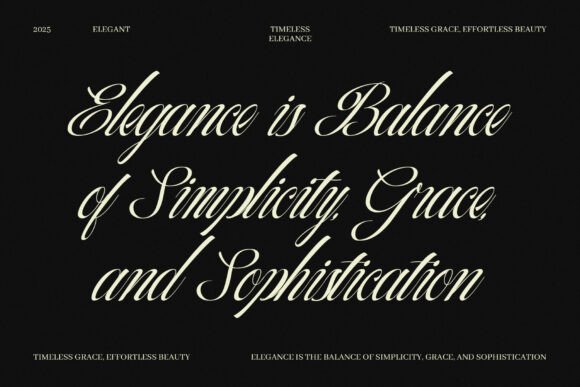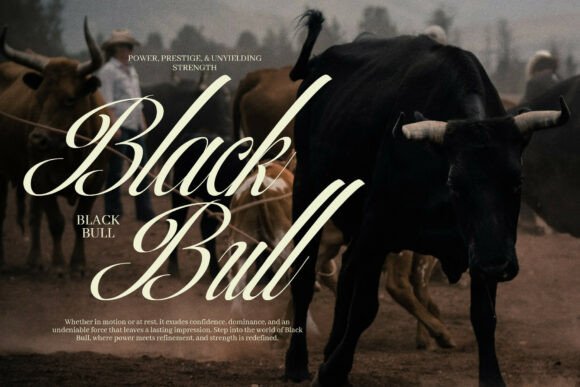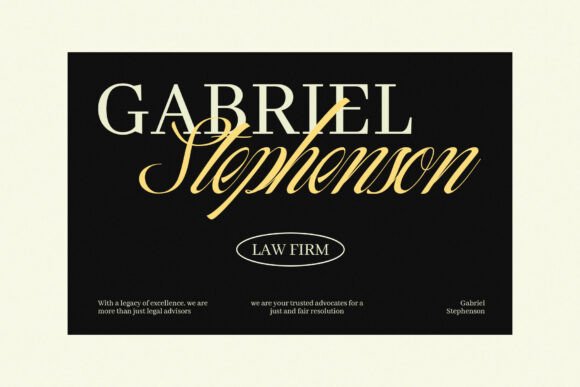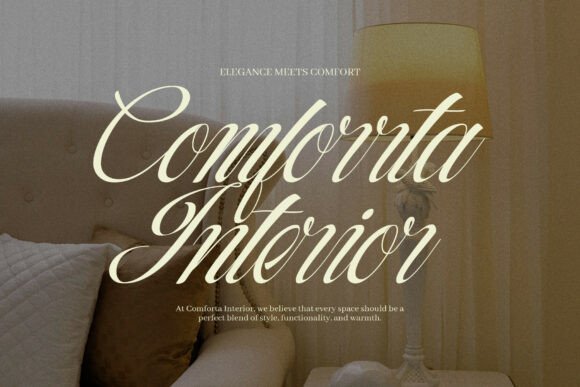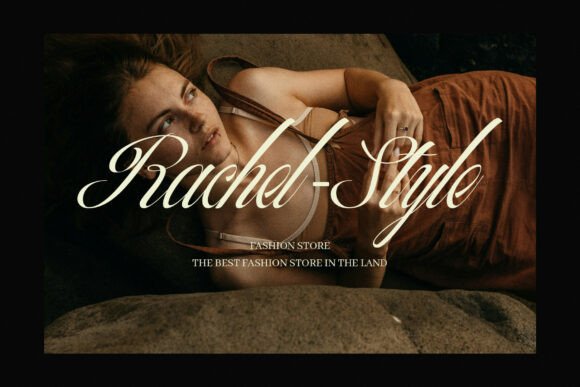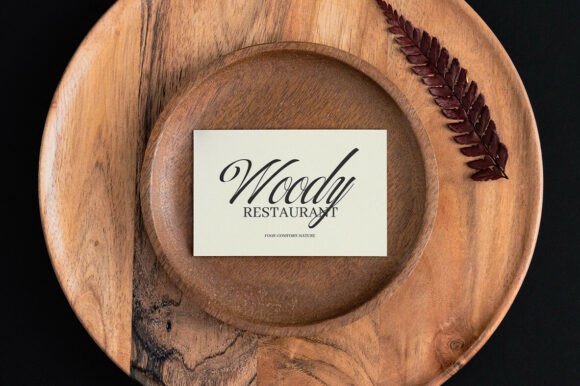
Introducing Beatric Elegant Script Font: Elevate Your Designs with Timeless Elegance
In the world of typography, a well-crafted font can make all the difference in elevating your creative projects from ordinary to extraordinary. Meet Beatric Elegant Script Font, a stunning modern calligraphy typeface that embodies the perfect blend of timeless elegance and artistic flair. Designed to bring a touch of luxury and refinement to your designs, Beatric is the ideal choice for crafters, designers, and anyone looking to add a dash of sophistication to their work.
A Masterpiece of Elegance and Artistry
Beatric Elegant Script Font is a beautifully crafted typeface that boasts smooth curves and flowing strokes, giving it a distinctly luxurious feel. Whether you’re working on a branding concept, preparing a wedding invitation, or creating a high-end advertisement, this elegant script font is designed to bring charm, refinement, and a premium look to every design. With its full set of stylish ligatures and alternates, Beatric offers a wide variety of letter combinations for natural and fluid typography, allowing you to experiment with different styles and create unique visual narratives.
Key Features of Beatric Elegant Script Font
- Elegant and luxury-inspired script style: Beatric’s sophisticated design makes it perfect for high-end branding, advertising, and editorial projects.
- Beautiful calligraphic alternates and ligatures: Add a touch of elegance to your designs with Beatric’s extensive set of stylish alternates and ligatures.
- Smooth, fluid curves for refined design work: Beatric’s smooth curves and flowing strokes ensure a refined and polished look in any design.
- Multilingual support for global branding: With support for multiple languages, Beatric is the perfect choice for global branding and international marketing campaigns.
- Perfectly balanced for digital and print use: Beatric’s versatile design makes it suitable for both digital and print applications, ensuring consistent results across different mediums.
- Optimized kerning for professional layout results: Beatric’s optimized kerning ensures precise control over letter spacing, resulting in professional-looking layouts.
Ideal Uses for Beatric Elegant Script Font
Beatric Elegant Script Font is an incredibly versatile typeface, making it suitable for a wide range of design applications. Here are some ideal uses for Beatric:
- Wedding and event invitations: Add a touch of elegance and sophistication to your wedding or event invitations with Beatric’s luxurious script style.
- Feminine branding and packaging: Beatric’s elegant design makes it perfect for feminine branding and packaging projects, such as beauty and lifestyle products.
- High-end advertising and marketing: Elevate your advertising and marketing campaigns with Beatric’s sophisticated and luxurious script style.
- Editorial and magazine design: Beatric’s refined design makes it suitable for editorial and magazine design projects, such as fashion and lifestyle publications.
- Digital and social media graphics: Beatric’s versatile design makes it perfect for digital and social media graphics, such as Instagram posts and Facebook ads.
Why Choose Beatric Elegant Script Font?
With so many fonts available, why choose Beatric Elegant Script Font? Here are just a few reasons why Beatric stands out from the crowd:
- Unique and distinctive design: Beatric’s elegant script style is both unique and distinctive, making it perfect for designers and crafters looking to create something special.
- High-quality craftsmanship: Beatric is meticulously crafted to ensure versatility and consistency, making it a reliable choice for designers and crafters.
- Easy to use and customize: Beatric’s intuitive design makes it easy to use and customize, even for those without extensive design experience.
In conclusion, Beatric Elegant Script Font is a stunning modern calligraphy typeface that embodies the perfect blend of timeless elegance and artistic flair. With its luxurious script style, beautiful calligraphic alternates and ligatures, and smooth curves, Beatric is the ideal choice for designers and crafters looking to elevate their creative projects. Whether you’re working on a branding concept, preparing a wedding invitation, or creating a high-end advertisement, Beatric is the perfect choice for adding a touch of sophistication and refinement to your designs.